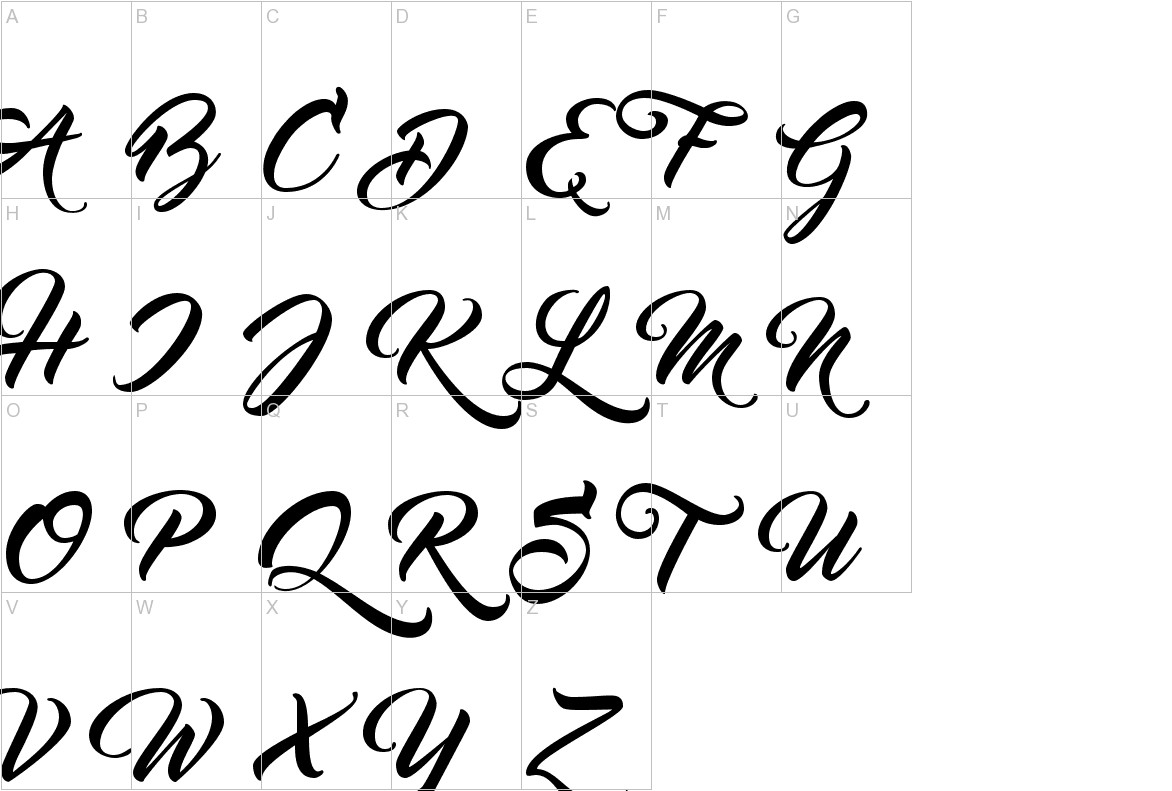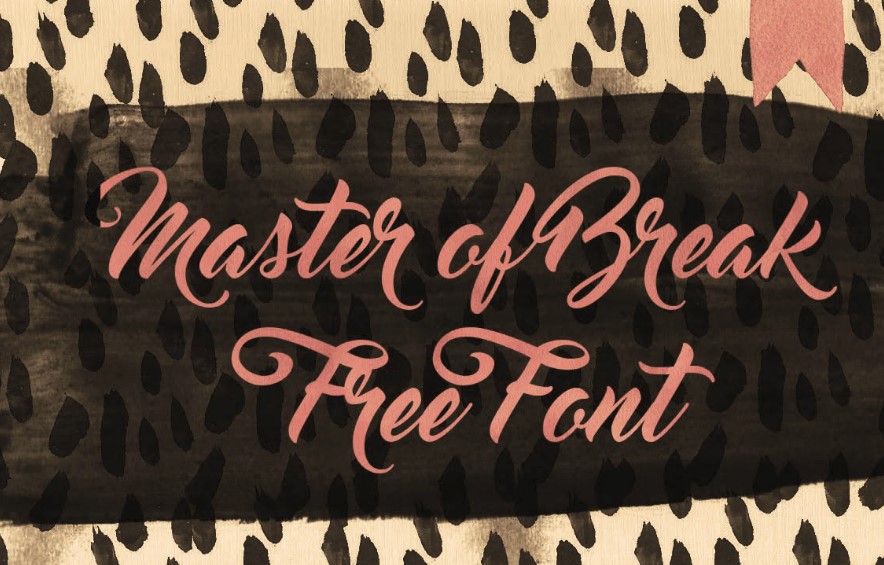
Master of Break Font
Master of Break Font is an outstanding script font with a  fashionable, and modern look. this font is famous due to its text generator function. Its two styles are free for commercial use. It has OTF and TTF features and is free to download.
The font family has Uppercase and Lowercase Letters, Numbers, and Numerals, special symbols, etc. Its characters give a handwritten feeling to the user, the script fonts are usually used for fancy-type logos and beautiful display designs. It’s designed to make the whole users are without a problem making use of it. the choice of the appropriate font bureaucracy is as large as such as oi’ cowboy font or an individual intelligently to a design.
This font is proportional because its characters occupy the same amount of horizontal spaces.